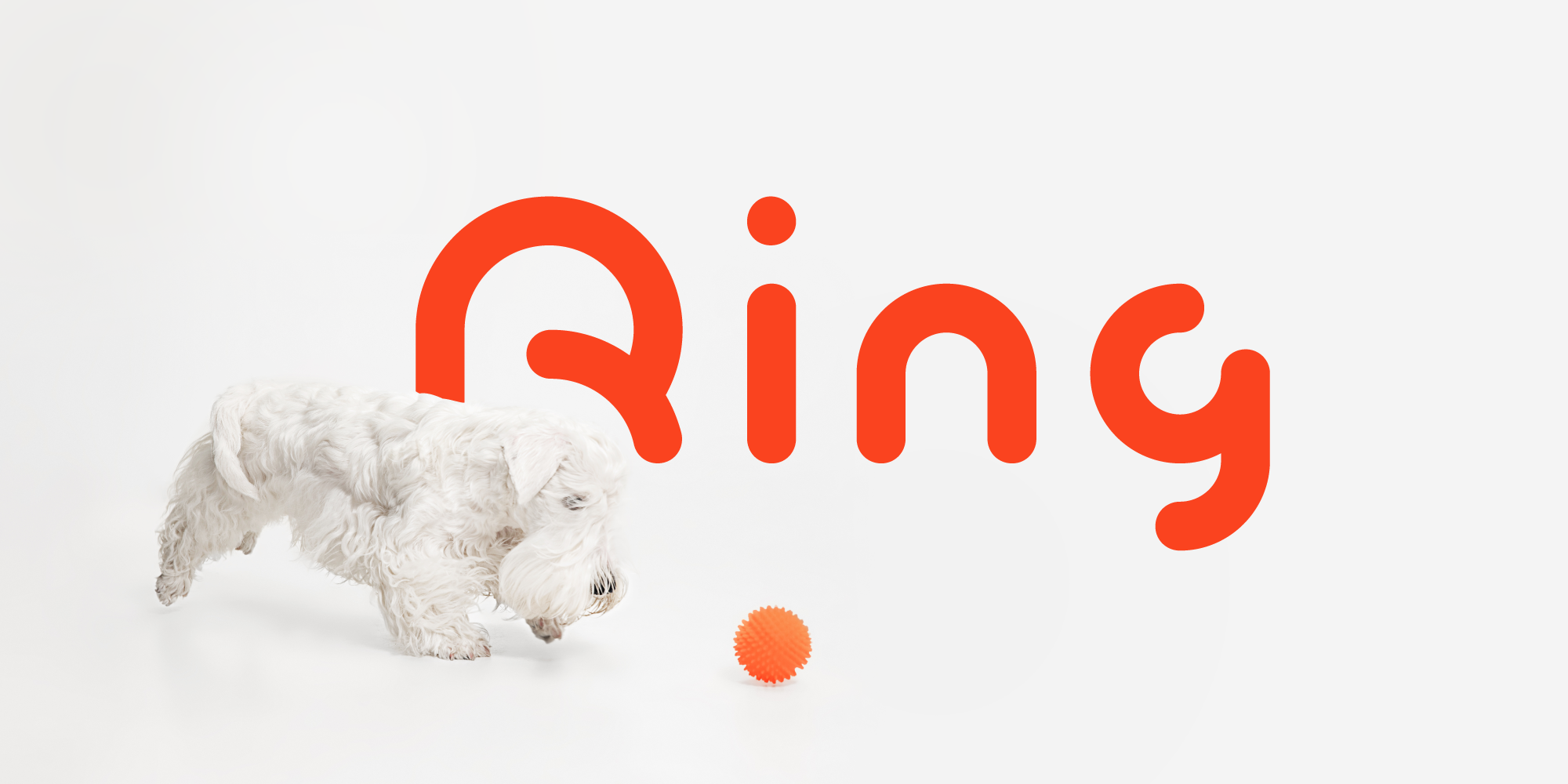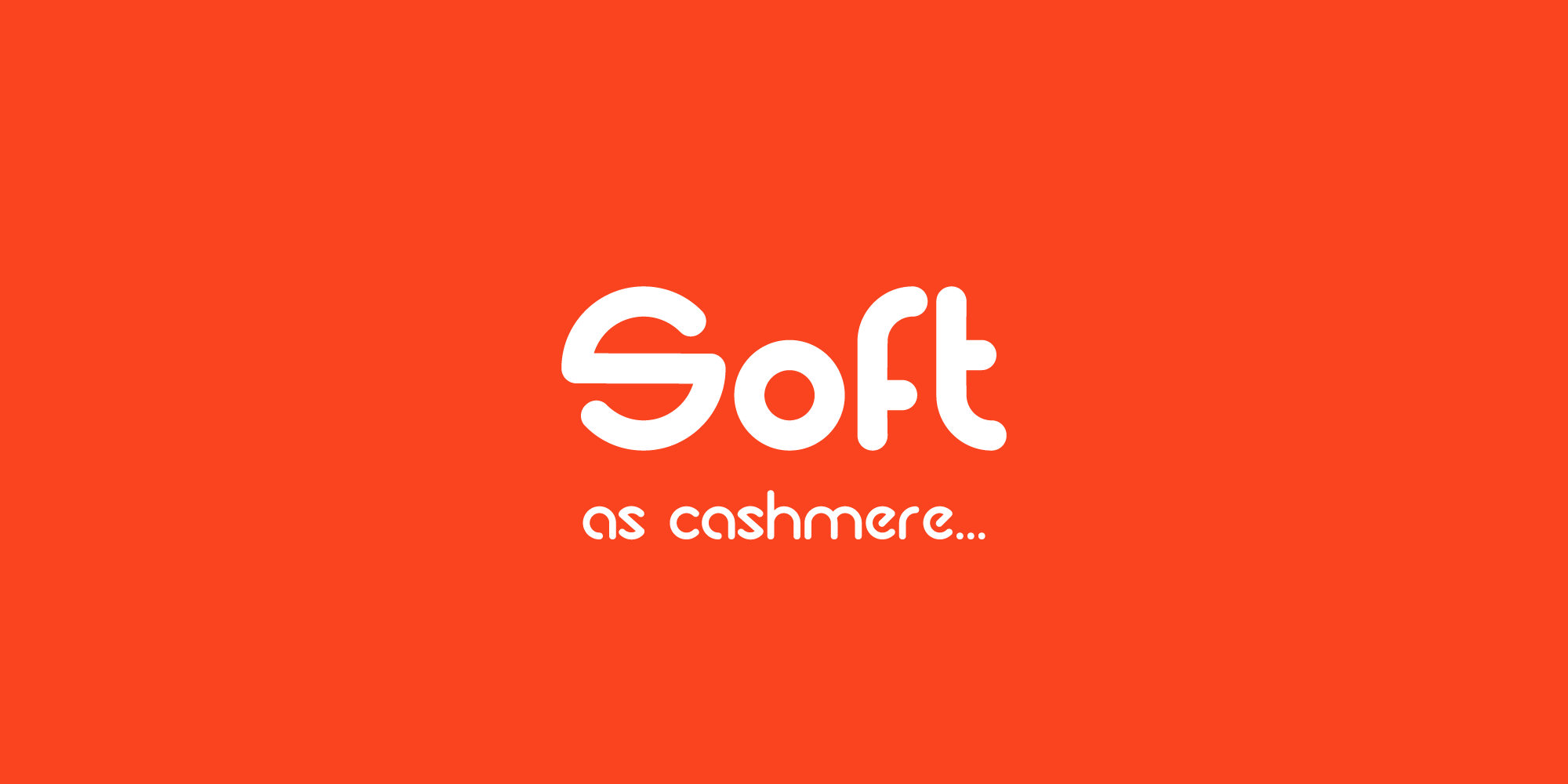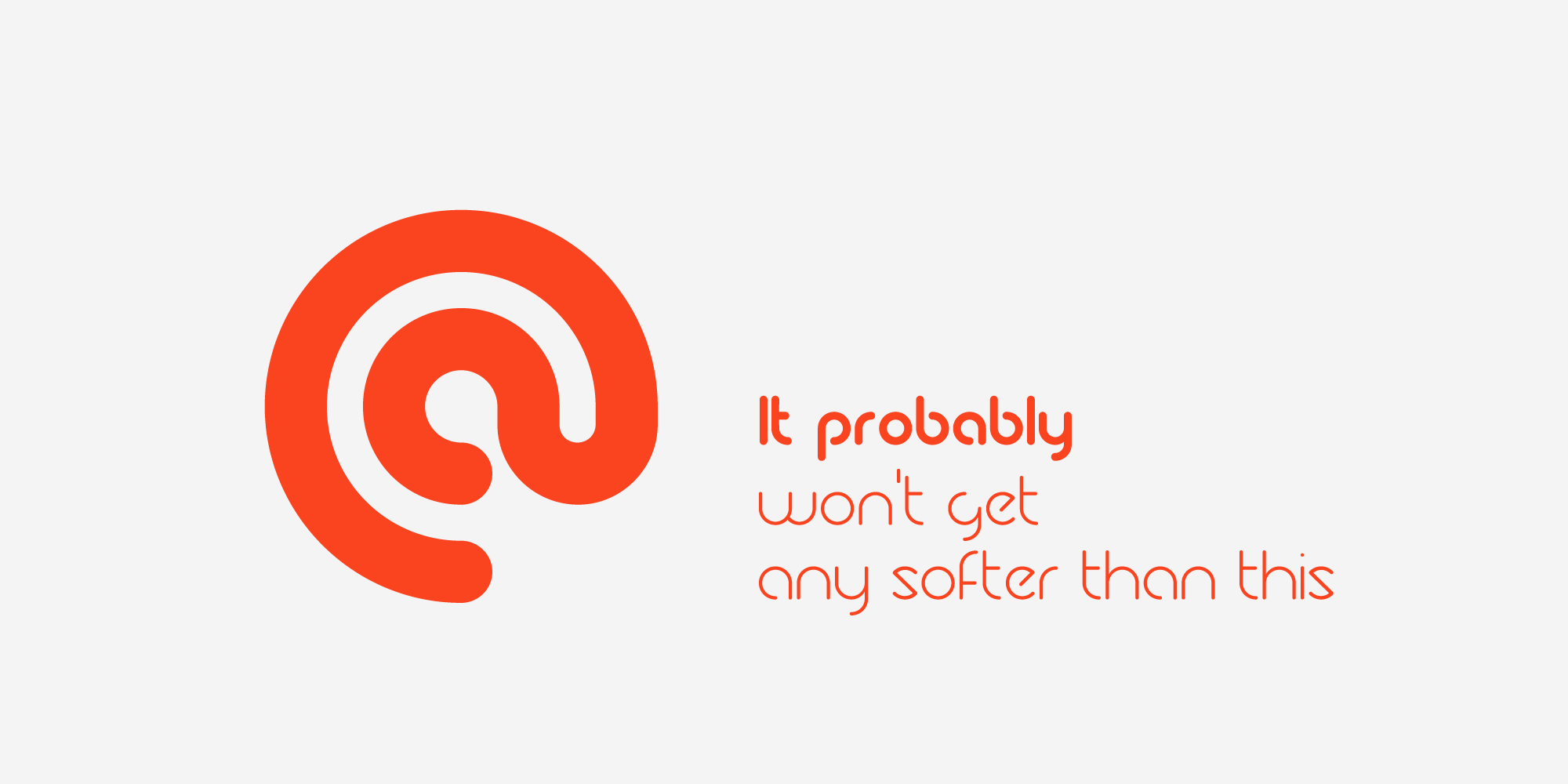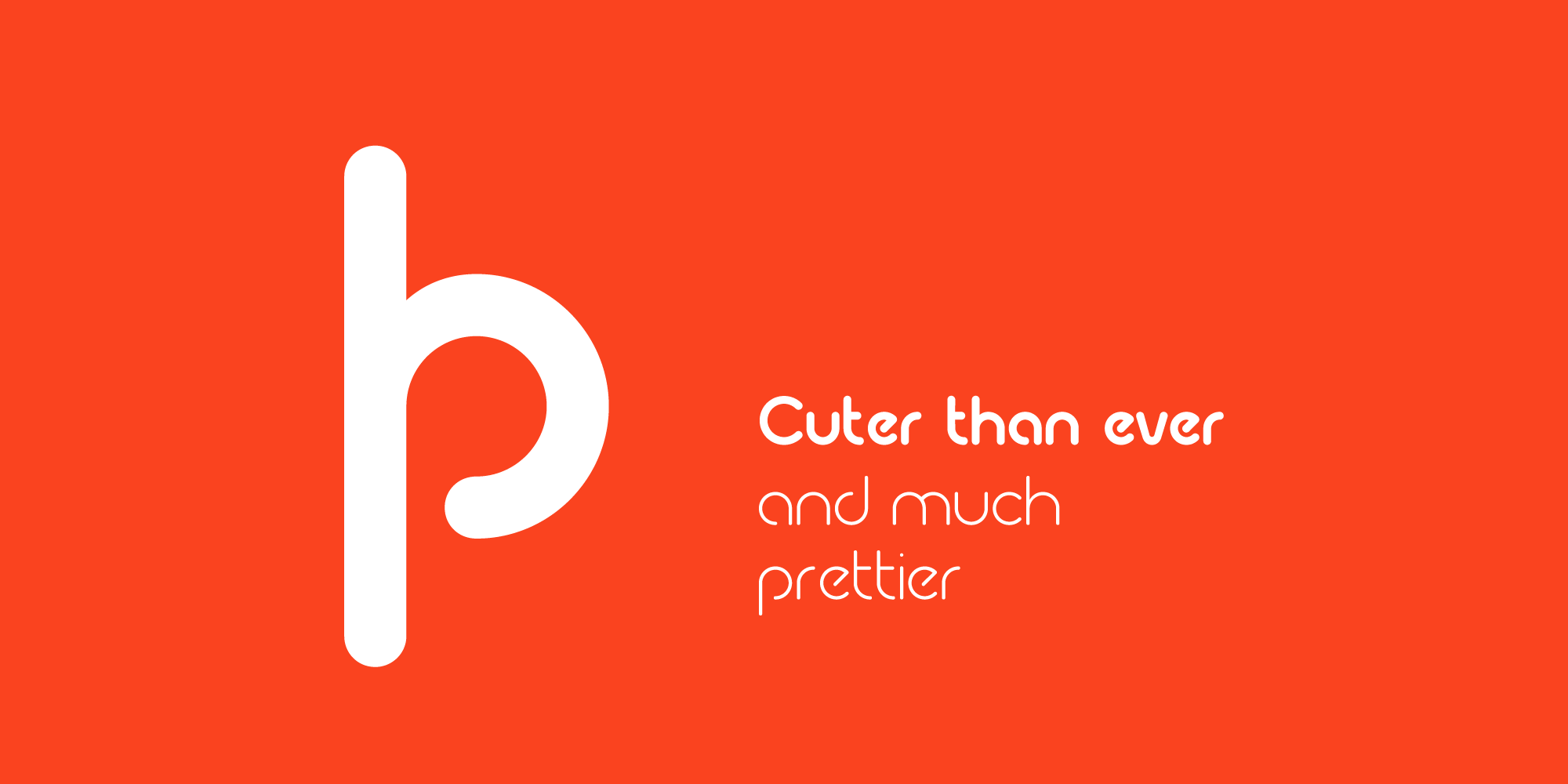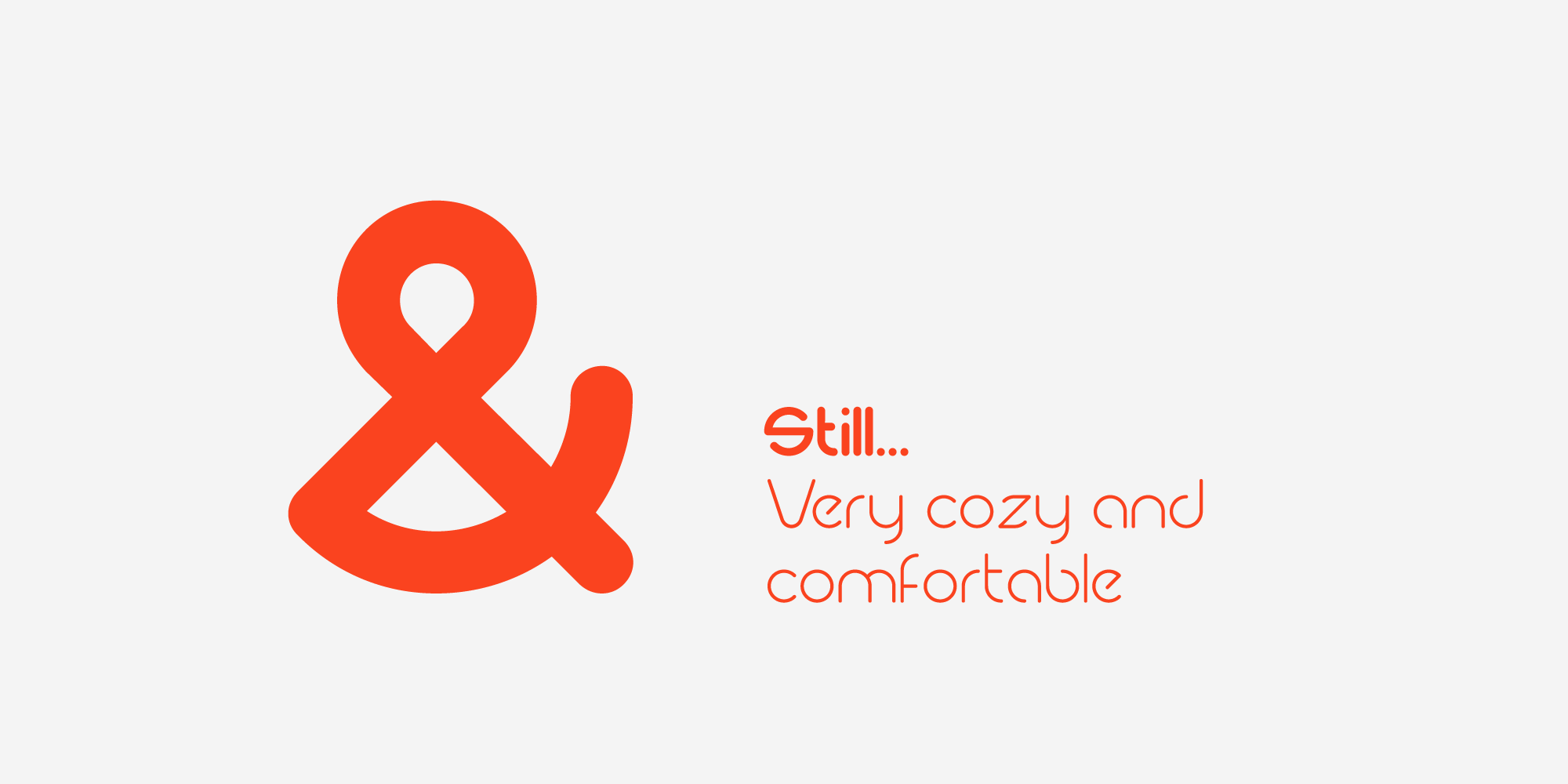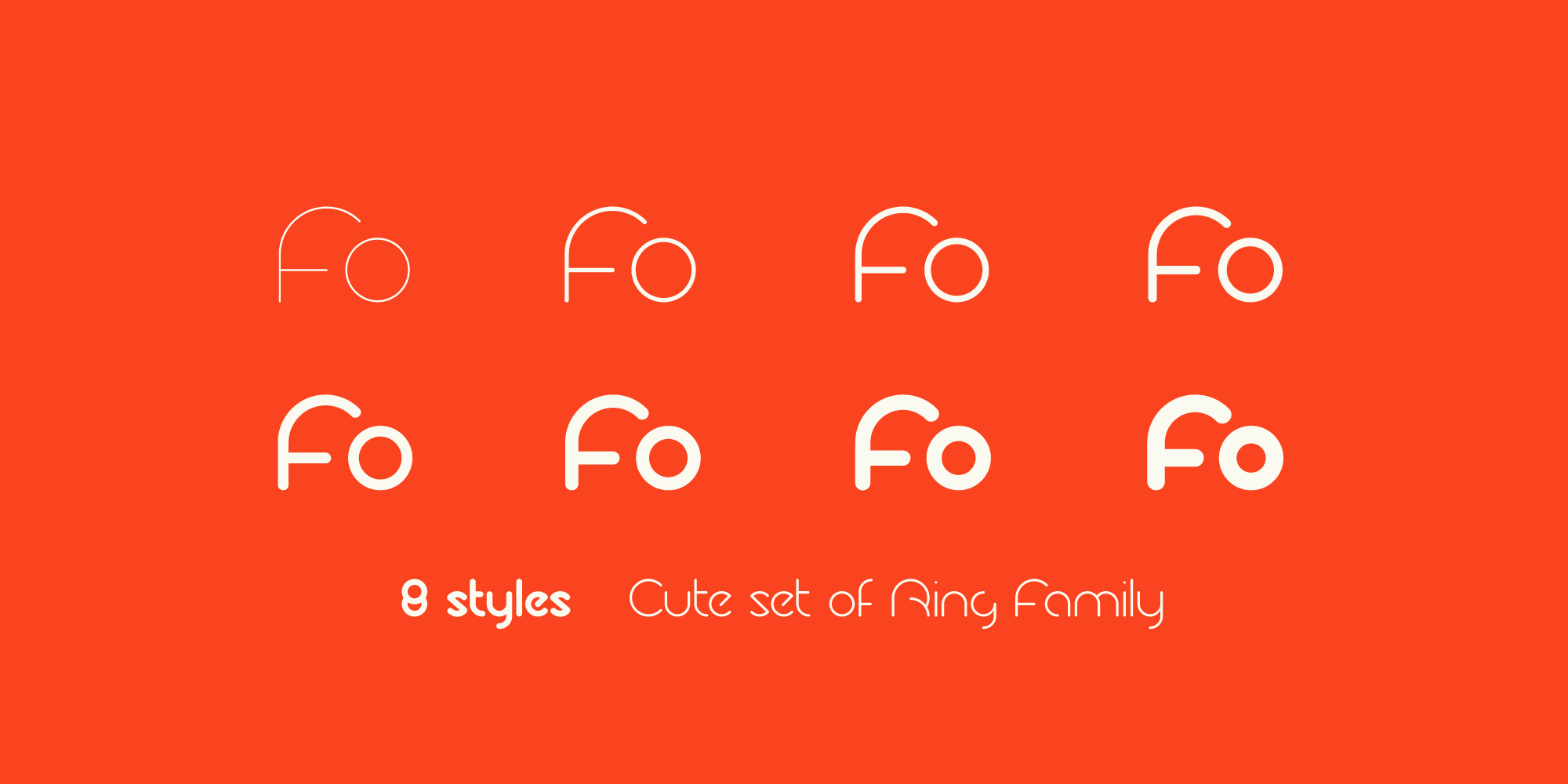
Ring Soft, soft as cashmere...
Cute set of the Ring font family!
It probably won't get any softer than this. Ring Soft is a cool, varied, and trendy-looking display font. No matter the topic, this font will be an incredible asset to your fonts’ library, as it has the potential to elevate any creation.
Cuter than ever and much prettier. Ring Soft and other fonts of Ring family is still very cozy and comfortable.